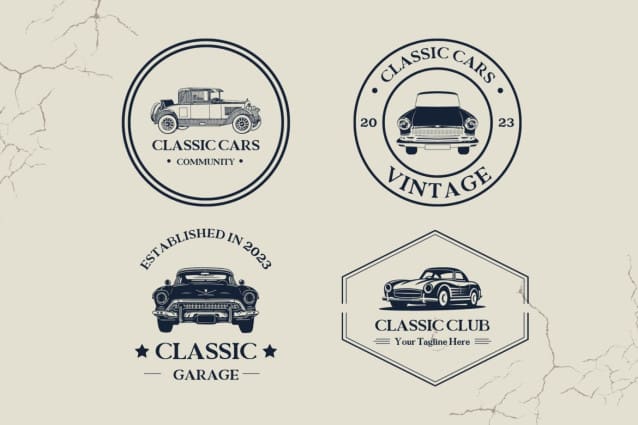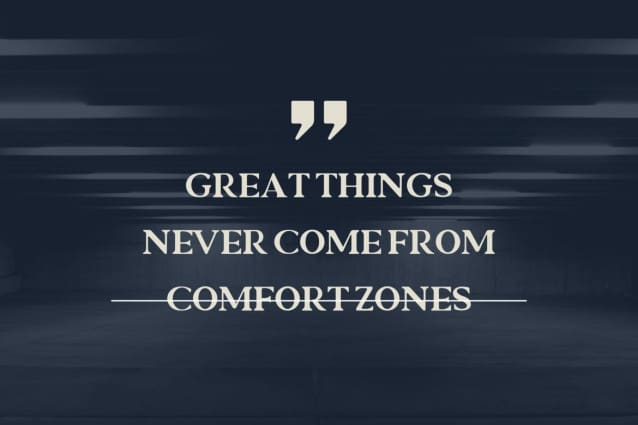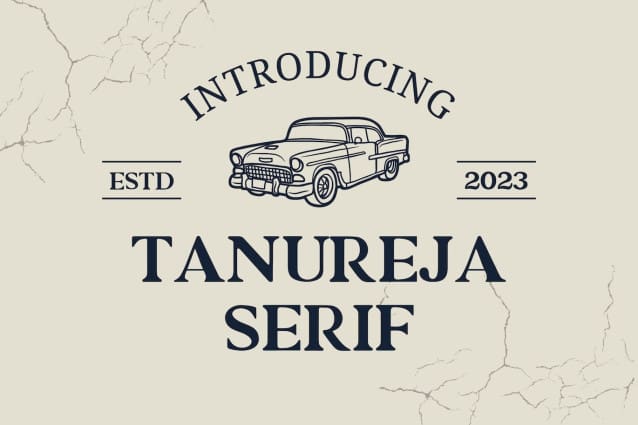
Tanureja Font
Tanureja Font is a premium serif font characterized by its elegant and classic vibes. This typeface is perfect for an elegant & luxury logo